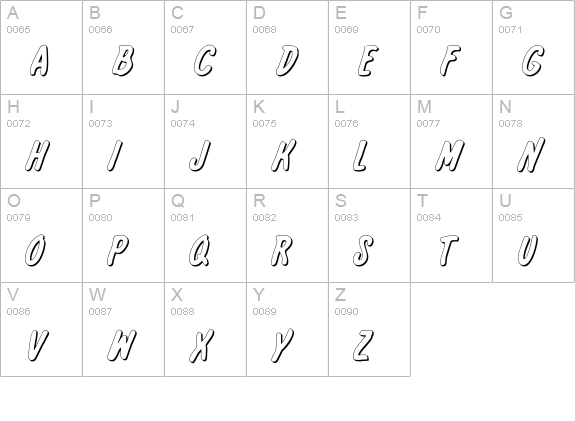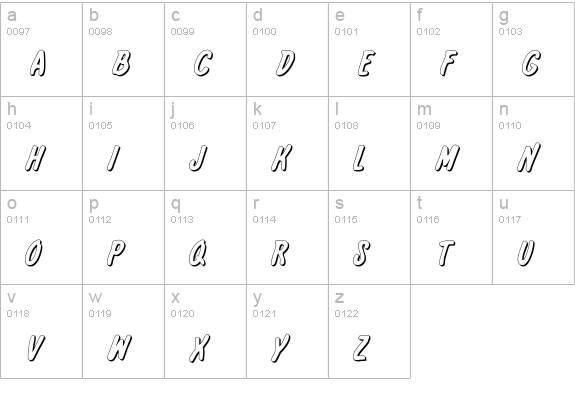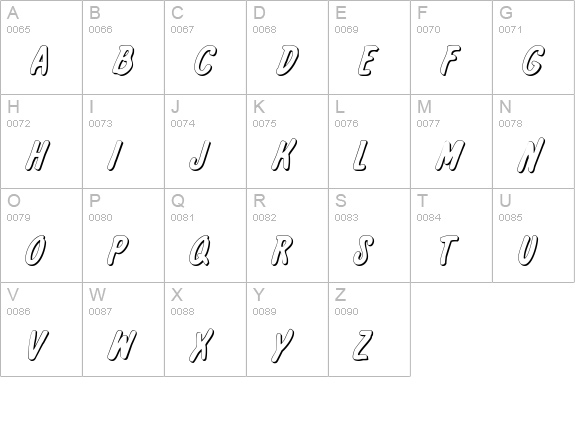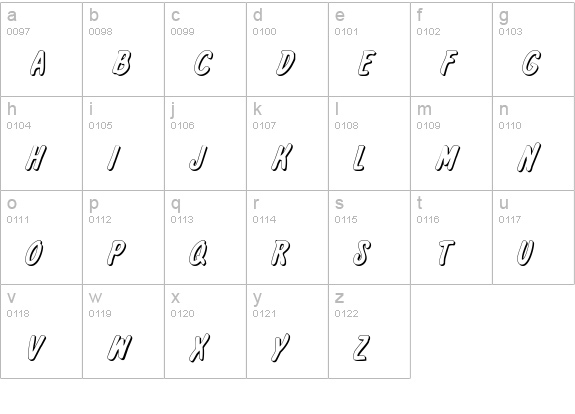
Introducing the extraordinary International Super Hero Out font, a powerful and captivating typeface that brings the heroic essence to any design project. With its bold and dynamic letterforms, this font is the ultimate tool for all things superhero-inspired. International Super Hero Out font showcases a unique blend of strength and elegance, perfectly capturing the spirit of iconic superhero characters. Each letter is meticulously crafted with intricate detailing and a commanding presence, making it impossible to overlook. This font is not only visually stunning but also incredibly versatile. Whether you're designing posters, comic books, movie titles, or even branding materials, International Super Hero Out font will effortlessly elevate your creations to new heights. What sets this font apart is its availability for free download at FontsMarket.com. Yes, that's right, this remarkable typeface is freely accessible for all design enthusiasts, giving you the opportunity to unleash your inner hero without any limitations. By downloading International Super Hero Out font, you'll have the power to create awe-inspiring designs that capture the attention and imagination of your audience. Its seamless compatibility with various design software ensures a smooth and efficient workflow, allowing you to bring your superhero visions to life with ease. So, don't miss out on this incredible opportunity to enhance your designs with the International Super Hero Out font. Download it freely at FontsMarket.com and embark on a thrilling design journey that will leave a lasting impact. Unleash the hero within and let your creativity soar to new heights!